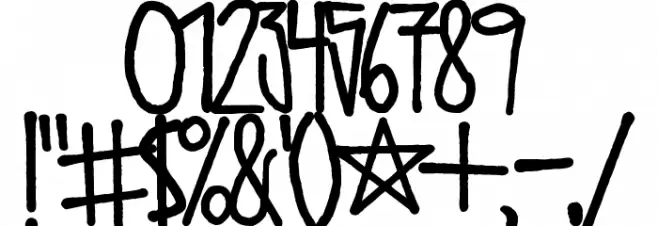
Urban Riot Font
Urban Riot Description
This font features a bold, graffiti-inspired style with a hand-drawn appearance. The letters are tall and narrow, with a slightly irregular and organic form that gives it a dynamic and energetic feel. The strokes are thick and consistent, creating a strong visual impact. The uppercase and lowercase letters maintain a cohesive look, while the numbers and special characters are designed to match the overall aesthetic. This font is ideal for projects that require a bold, urban, and edgy look.
| Width | Condensed |
| Overall Style | Urban, Edgy, Graffiti |
| Use Case | Headlines, Posters, Branding |
| Proposed Projects | Perfect for street art designs, music album covers, event posters, and urban-themed branding. |